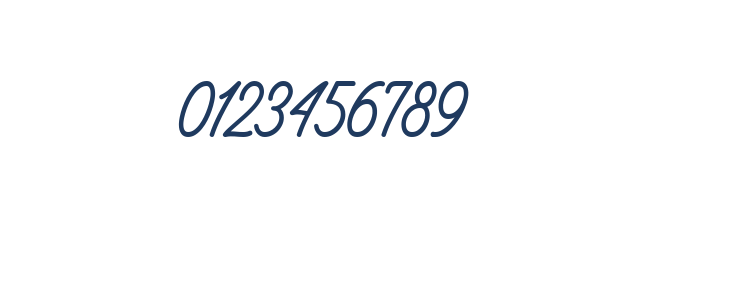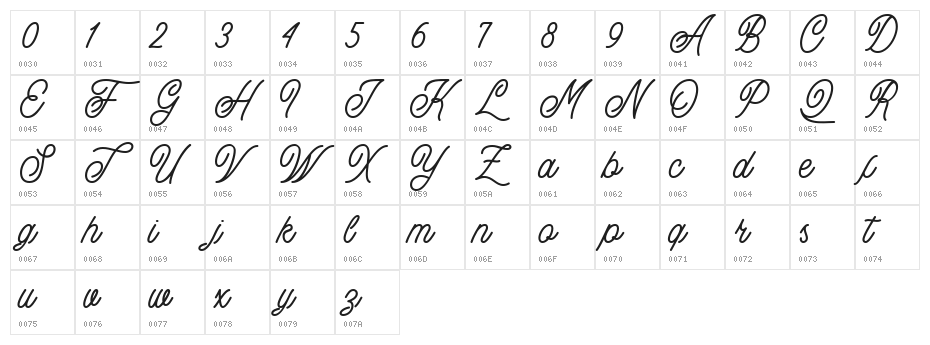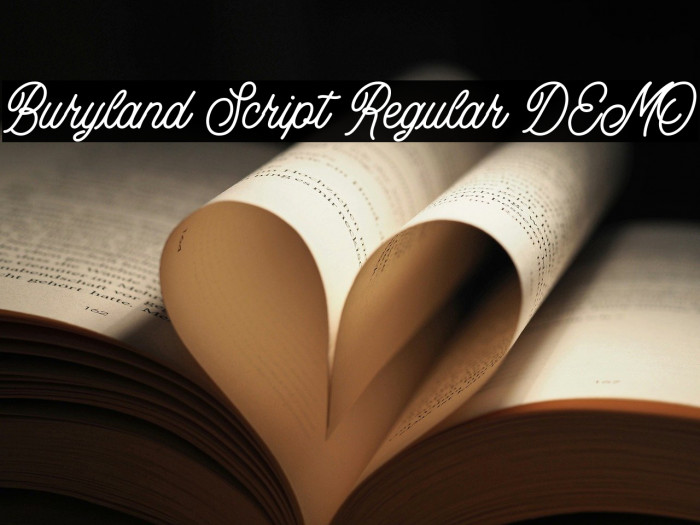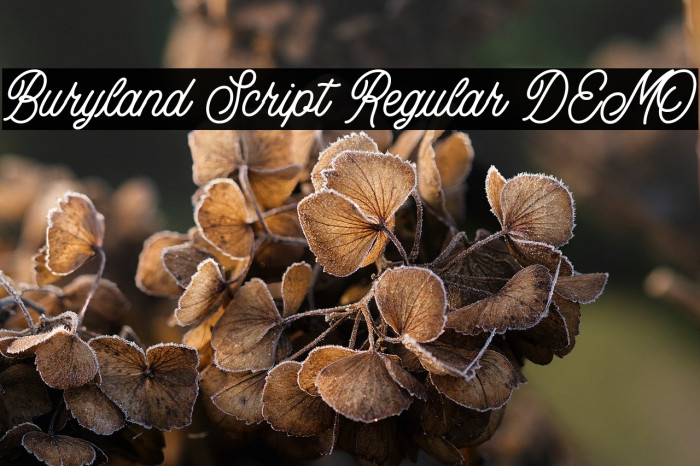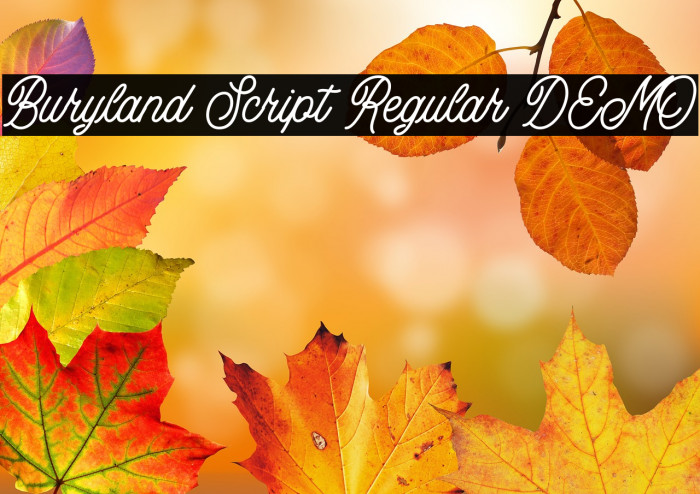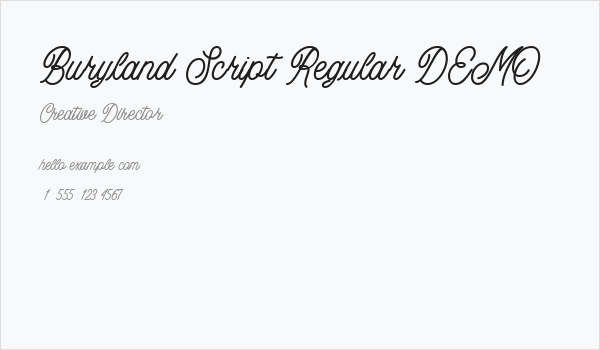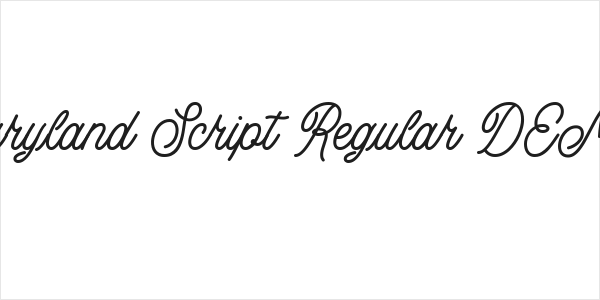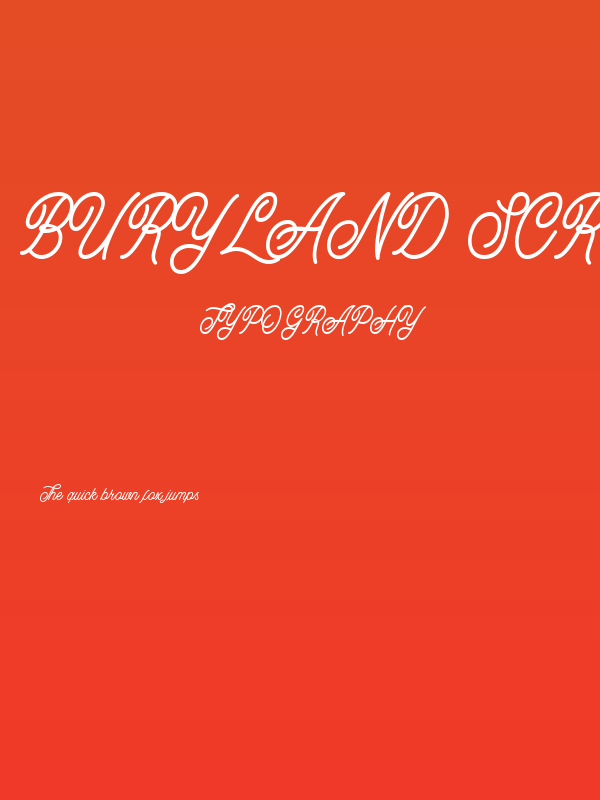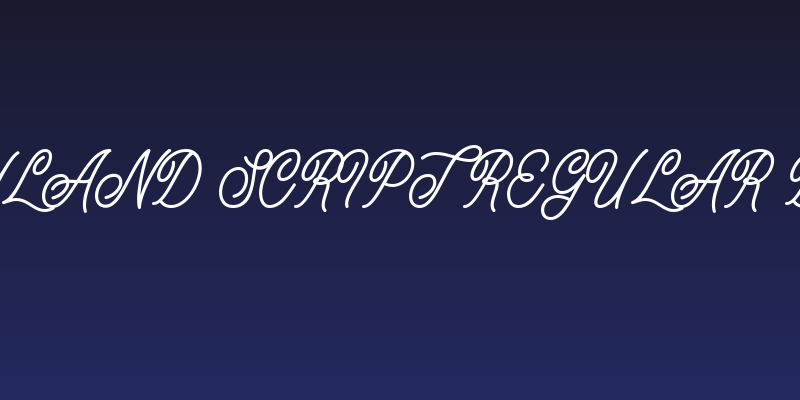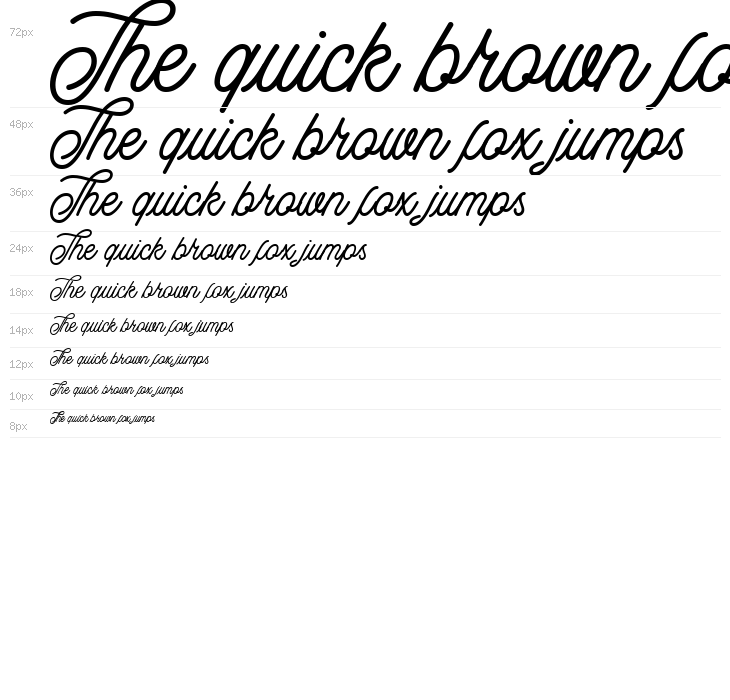
Buryland Script Regular DEMO Font
This elegant script font features flowing, cursive letters with a classic and sophisticated appearance. The uppercase letters are ornate and connected, while the lowercase letters maintain a smooth, continuous flow. The numerals are styled to match the graceful curves of the alphabet, adding a cohesive look to the overall design. The special characters are designed with the same attention to detail, ensuring they blend seamlessly with the rest of the font. This font exudes a sense of elegance and refinement, making it ideal for formal invitations, branding, and decorative purposes.
Overall StyleClassic
Use CaseLogos, Invitations, Decorative text
Proposed ProjectsIdeal for wedding invitations, elegant branding, greeting cards, and decorative signage.